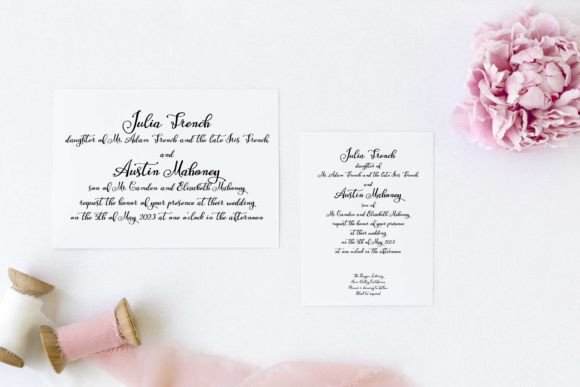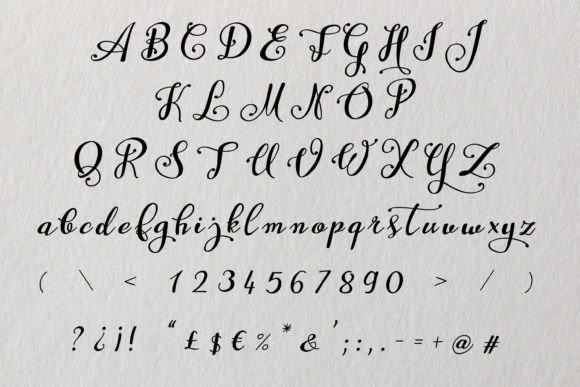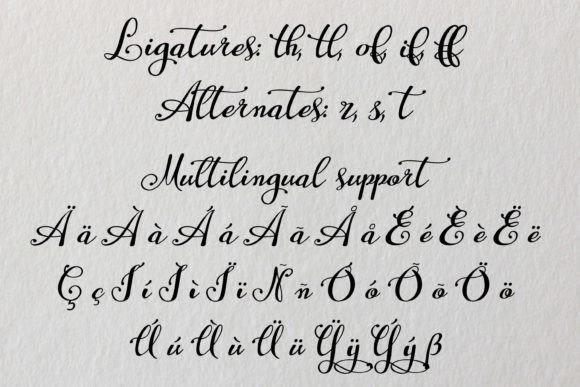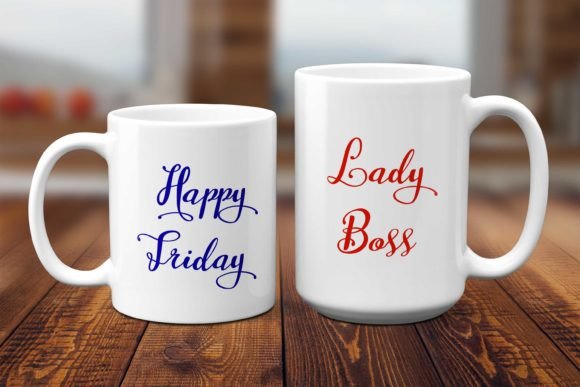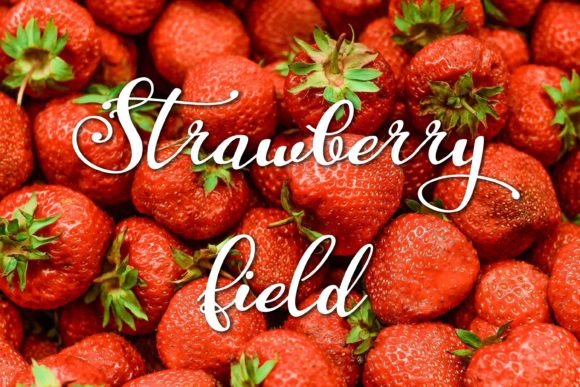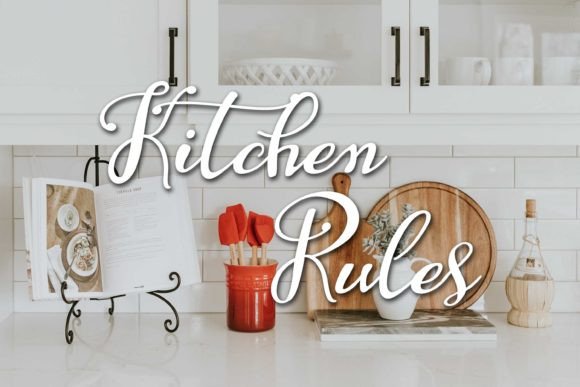
Mastyr Font
About Mastyr Font
The Mastyr Font Download is a modern, trendy, and feminine handwritten typeface designed to bring elegance and warmth to your projects. Its romantic curves and stylish flow add a handcrafted touch, turning ordinary designs into stunning works of art.
Created for versatility, Mastyr is the kind of handwritten script that fits beautifully into both digital and print applications. Whether you’re designing for a personal project or professional branding, this font adapts seamlessly and delivers a polished yet approachable look.
Features of Mastyr Font
• Stylish handwritten script with feminine curves
• Full uppercase and lowercase characters
• Numbers, punctuation, and symbols included
• Multilingual support for global projects
• PUA encoding for easy access to alternates
Best Uses for Mastyr Font
• Wedding Invitations & Stationery – Elegant and romantic typography for your special day.
• Thank You & Greeting Cards – Add warmth and personality to your messages.
• Logos & Branding – Create stylish and modern brand identities.
• Quotes & Posters – Make inspiring words stand out with a handwritten touch.
• Business Cards – Present a chic and professional first impression.
• Social Media Posts – Elevate your designs with trendy typography.
Why Choose Mastyr Font?
The Mastyr Font Download combines style, charm, and readability. Unlike generic typefaces, its handwritten form feels authentic, personal, and artistic. Whether you want to design something soft and romantic or modern and bold, Mastyr delivers a balance that works across different themes.
Adding the Mastyr Font Download to your collection gives you a versatile handwritten script that instantly elevates your designs. Its warm, feminine style ensures that your projects—whether wedding stationery, logos, or social media posts—stand out beautifully.